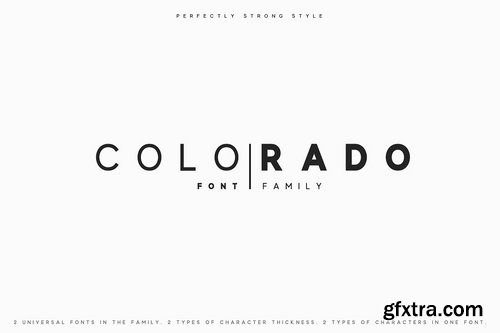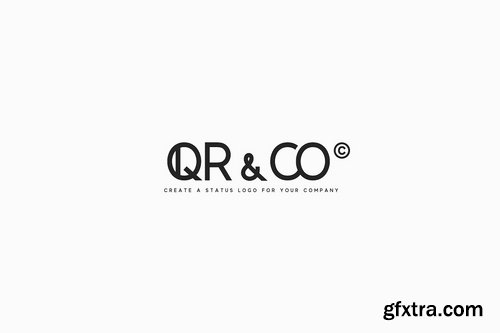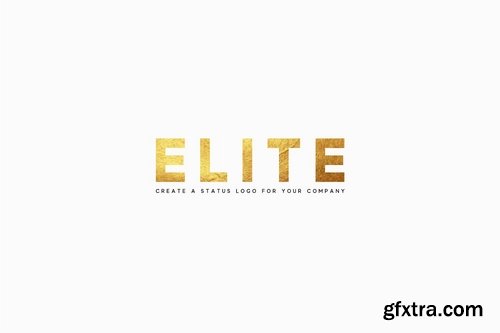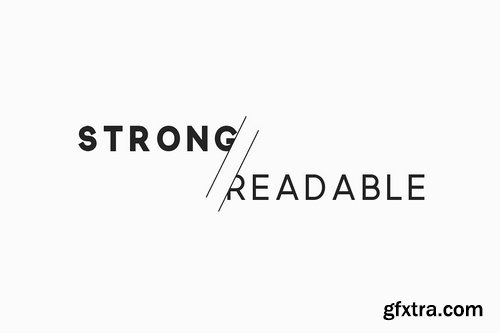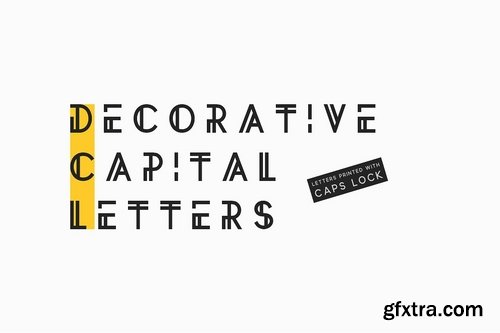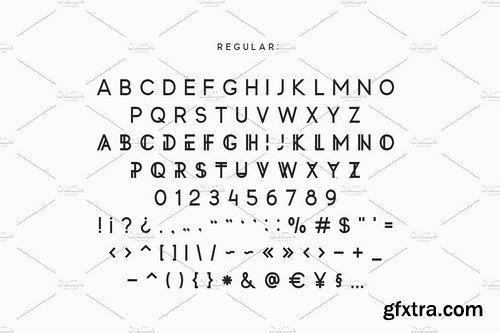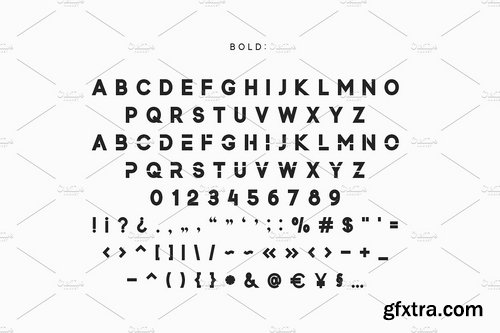
Colorado - Strong and Universal font family. Ideal for logos, the font emphasizes the status of the company. It looks great both in a large volume of text, and in short inscriptions. The font remains Readable even with the minimum text size. The font is combined with any calligraphic and hand-written fonts, thus suitable for various solemn congratulations.